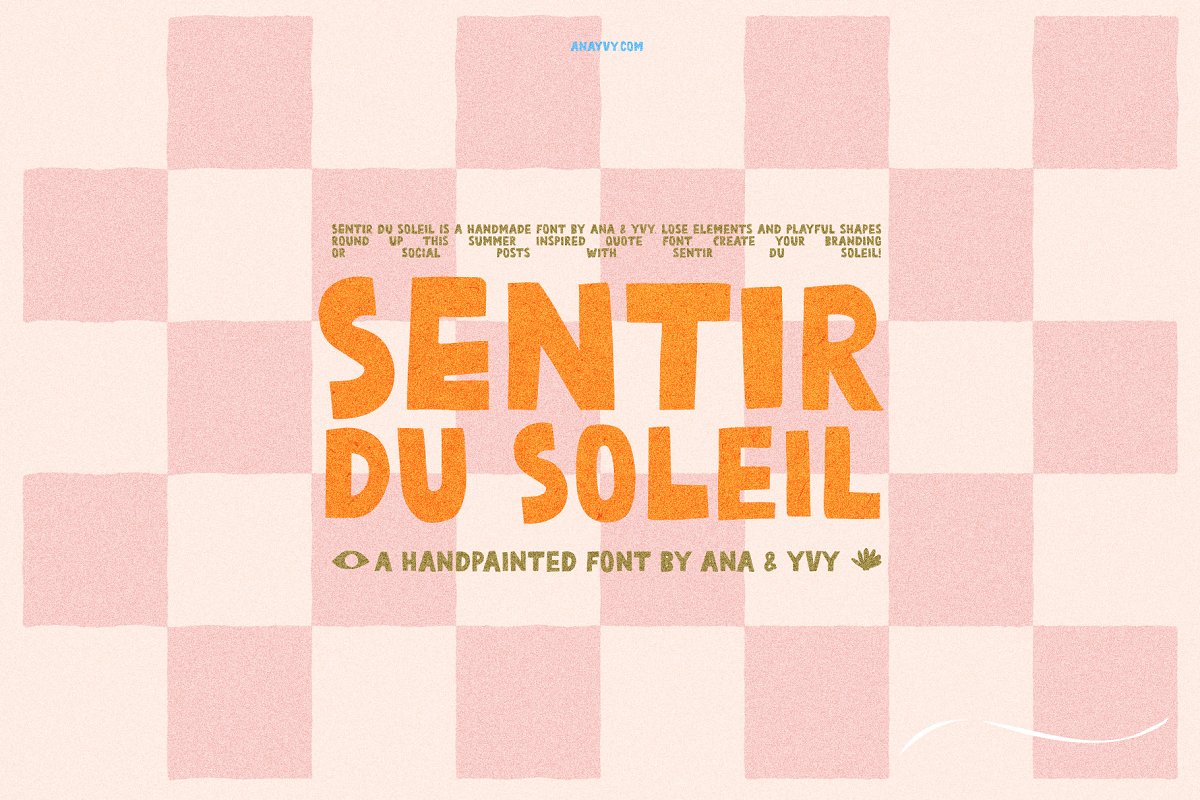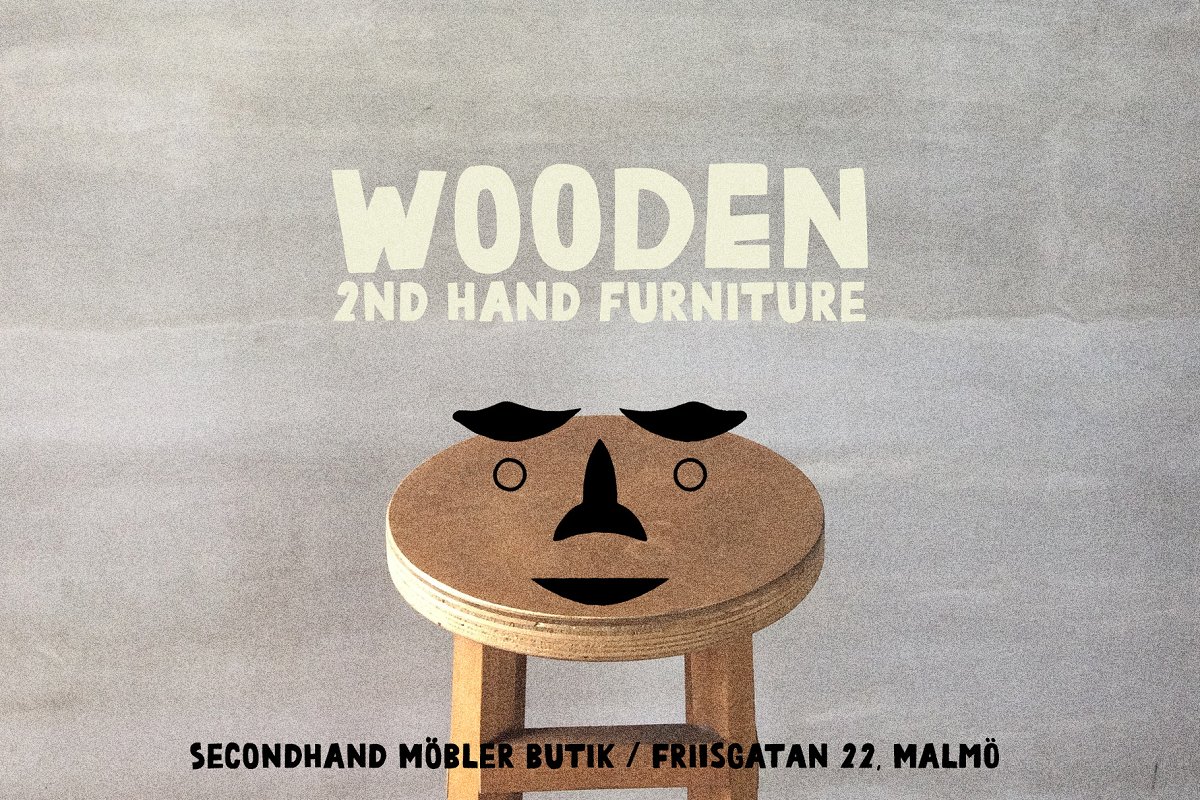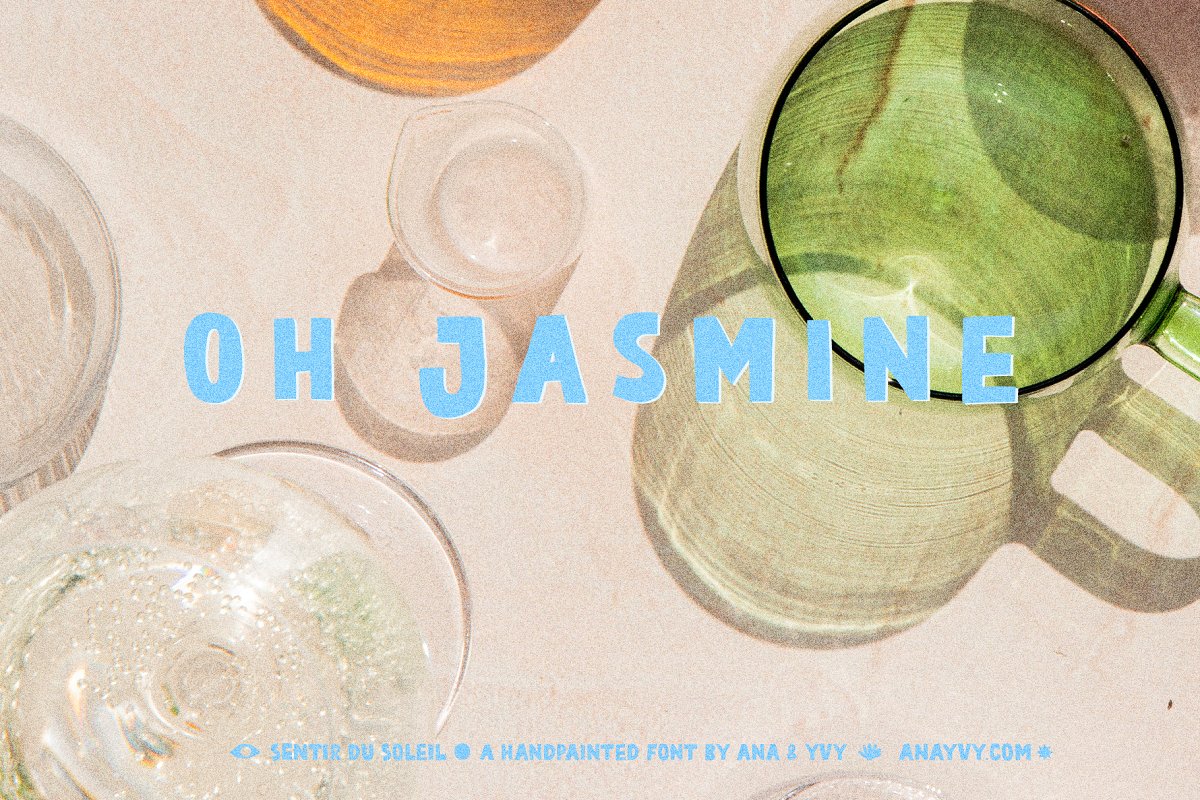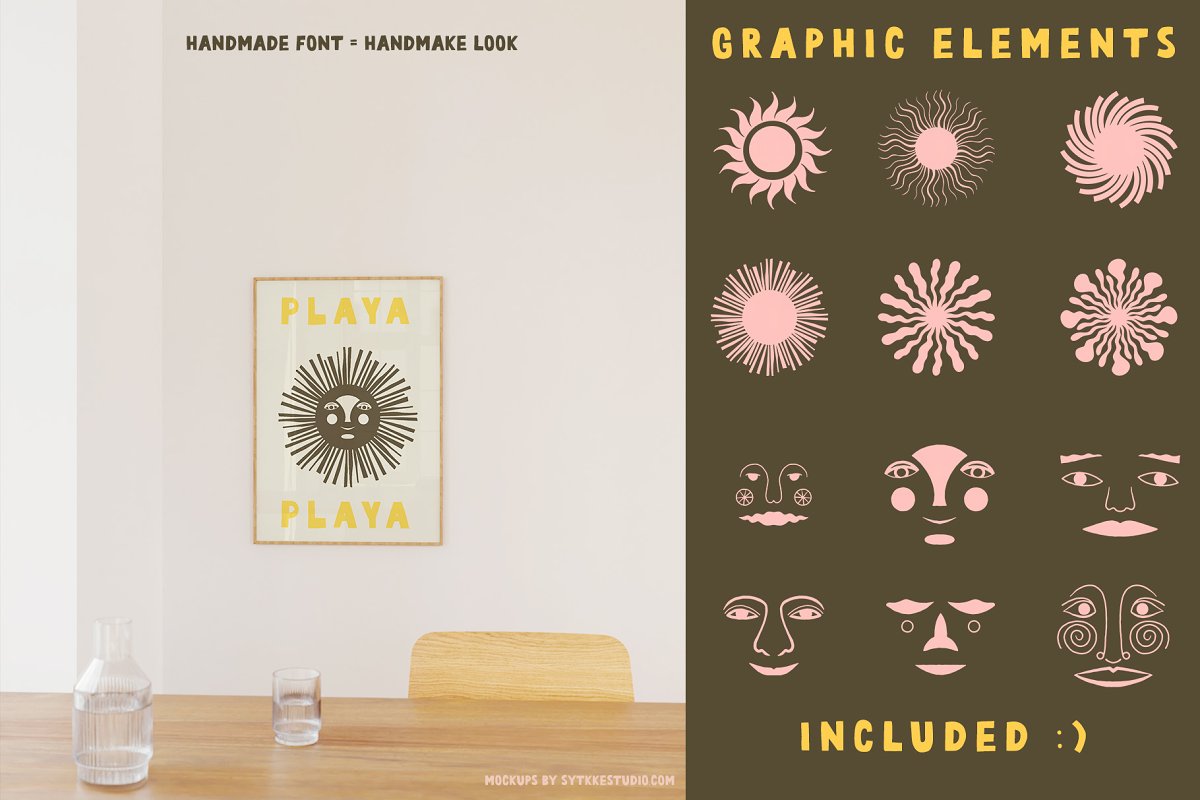
About the Sentir Du Soleil Cutout Marker Font
Say hello to Sentir Du Soleil – a playful all caps cutout-style marker font, Lowercase letters are the alternative to Uppercase , Combine both to make your quote look even more handmade, Great for greeting cards, quotes, social media posts, posters, playful branding, and so much more!WHAT’S INSIDESentirDuSoleil, otf89 Graphic elements PNG & EPS format (color black)Have fun!ana & yvyused mockup by Stykke Studio: https://crmrkt